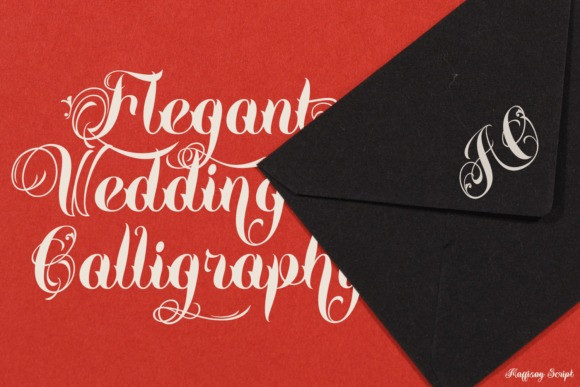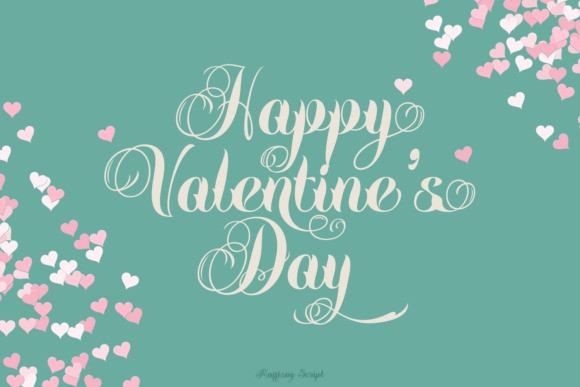
Maffisoy Font
Maffisoy Font a high-contrast Luxury Display Font designed for brands that demand a sophisticated, editorial presence.While it draws heavy inspiration from calligraphic traditions, the Maffisoy typeface is engineered as a powerful display tool, featuring thick, dominant strokes and razor-sharp terminals that command attention on high-end packaging and cinematic titles. This is not just a font; it is a visual experience that combines the drama of a serif display with the artistry of traditional lettering.
The Maffisoy font is the ultimate choice for designers looking to elevate their visual hierarchy. It excels as a font for luxury branding, boutique logotypes, and high-fashion magazine covers where every character needs to feel like a piece of art. To maximize its impact, pair the Maffisoy typeface with plenty of negative space and a clean, minimalist sans-serif for secondary copy.
Whether you are crafting upscale wedding stationery, designing a premium wine label, or creating a signature look for a luxury hotel, this font provides an unparalleled blend of classic elegance and modern, bold authority.